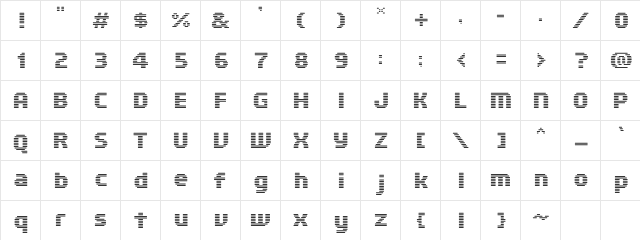
Cardew Six Rounded
Design Context for Cardew Six Typeface
Cardew Six softens its letterforms with rounded terminals, giving it an approachable, friendly quality that works well in consumer-facing and digital contexts.
Well-suited to UI design, mobile interfaces, and any brand that wants approachability without sacrificing clarity.
Font Pairing: Pairs well with a rounded or humanist sans for body copy, maintaining the friendly tone without relying on Cardew Six to carry extended reading.
Pro Tip: Use Cardew Six for UI elements, app interfaces, and anywhere a friendly, approachable tone needs to be maintained without sacrificing clarity.